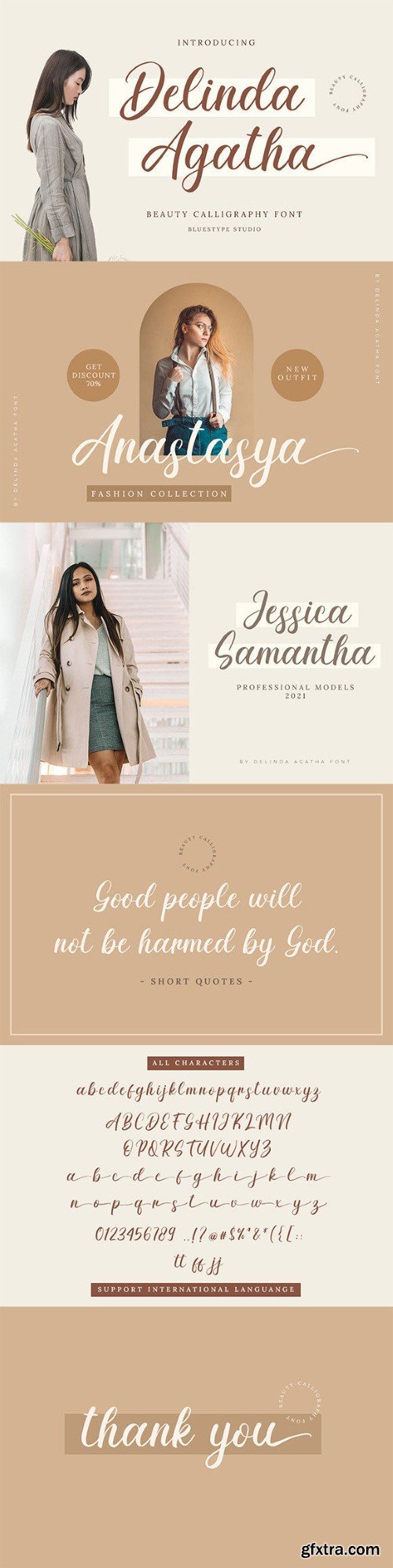
戴尔辛达·阿加莎 - 篆书字体
Delinda Agatha is a sweet and simple Script Calligraphy with a beauty feel. Fall in love with its raw authenticity!
- Stylistic Alternates
- Ligatures
- Support Multilingual